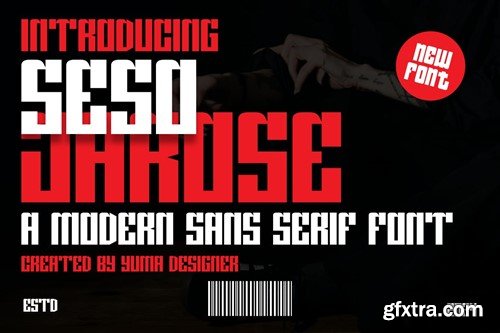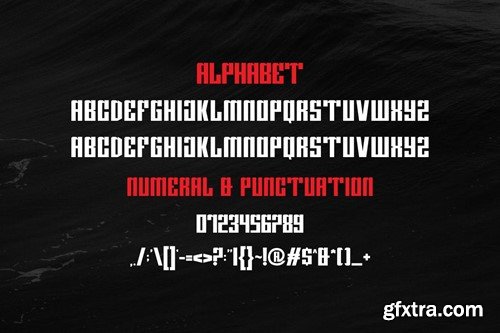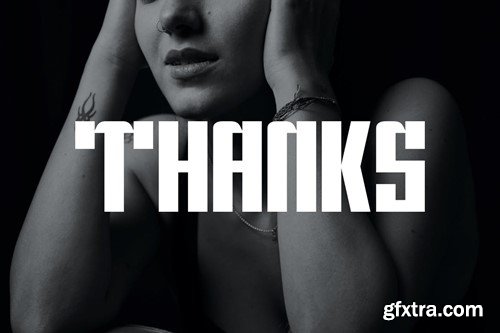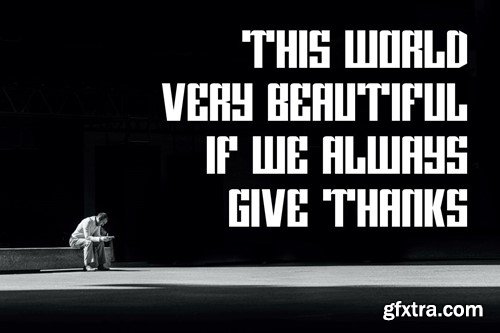
Seso Jarose - Modern Best Font
Introducing Seso Jarose Modern Sans Serif Font. Seso Jarose is a modern and simple font, best used as a display for headings, logos, branding, magazines, product packaging and invitations. Seso Jarose come with clean lines and smooth curves give any project an extra touch of class. What you get: Thank you.